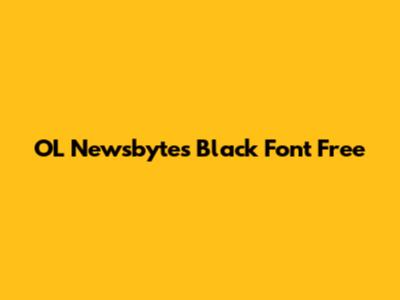
Hey guys! Are you on the hunt for that perfect font to give your projects a sleek, modern edge? Look no further! Today, we're diving deep into the world of OL Newsbytes Black Font, exploring why it's a fantastic choice, where you can snag it for free, and how to make the most of it in your designs. Trust me, by the end of this article, you'll be itching to add this gem to your font library.
What is OL Newsbytes Black Font?
OL Newsbytes Black Font is a typeface that exudes sophistication and contemporary appeal. Its clean lines and bold strokes make it incredibly versatile, suitable for a wide array of design applications. From eye-catching headlines to impactful body text, this font is designed to grab attention and maintain readability. What sets it apart is its distinctive character shapes, lending a unique personality to any project. Whether you're working on a website, poster, branding material, or even a simple social media graphic, OL Newsbytes Black Font adds a touch of elegance that's hard to ignore. The font's robust design ensures it stands out, making it perfect for titles and headings that need to make a strong impression. Moreover, its balanced letterforms and precise kerning contribute to a polished, professional look. It's not just about being bold; it's about being refined and making a statement with every character. The versatility of OL Newsbytes Black Font extends to both print and digital media, ensuring consistent visual impact across all platforms. Its clarity and legibility make it an excellent choice for longer texts, providing readers with a comfortable and engaging reading experience. Ultimately, OL Newsbytes Black Font is more than just a font; it's a design tool that empowers you to create visually stunning and effective communications. This fontβs ability to adapt to different design contexts makes it a valuable asset for designers of all levels. From minimalist designs to more complex compositions, OL Newsbytes Black Font integrates seamlessly, enhancing the overall aesthetic. It is a testament to thoughtful design, where every detail has been meticulously crafted to achieve a harmonious balance between form and function. So, if you're looking for a font that combines boldness with sophistication, OL Newsbytes Black Font is undoubtedly a top contender.
Why Choose OL Newsbytes Black Font?
So, why should you specifically choose OL Newsbytes Black Font over the countless other fonts available? Well, let me break it down for you. First off, its boldness makes it incredibly effective for grabbing attention. In a world inundated with information, standing out is crucial, and this font does just that. Whether it's a website header, a poster title, or a logo, OL Newsbytes Black Font ensures your message is seen and remembered. Secondly, the font's clean and modern design lends a touch of sophistication to any project. It's not just about being loud; it's about being stylish and professional. This makes it an excellent choice for businesses and brands looking to convey a sense of competence and innovation. Thirdly, OL Newsbytes Black Font is surprisingly versatile. While it shines in headlines and titles, it's also legible enough to be used in body text, especially in shorter paragraphs or captions. This flexibility allows you to maintain a consistent visual style throughout your design. Fourthly, the font's unique character shapes give it a distinct personality. It's not just another generic bold font; it has its own flair and charm. This can help your designs stand out from the crowd and leave a lasting impression. Fifthly, OL Newsbytes Black Font often comes with a variety of weights and styles, giving you even more control over your design. You can adjust the thickness and slant of the font to suit your specific needs. Finally, and perhaps most importantly, it's often available for free! Who doesn't love a high-quality font that doesn't break the bank? By choosing OL Newsbytes Black Font, you're not just selecting a typeface; you're making a statement. You're saying that you value both aesthetics and functionality, and that you're willing to go the extra mile to create designs that truly resonate with your audience. Its robust design, balanced letterforms, and precise kerning contribute to a polished, professional look, making it a valuable asset for designers of all levels. So, if you're looking for a font that combines boldness with sophistication and versatility, OL Newsbytes Black Font is undoubtedly a top contender.
How to Use OL Newsbytes Black Font in Your Designs
Alright, you've got your hands on OL Newsbytes Black Font β now what? Let's talk about how to effectively use this font in your designs to make them truly shine. First off, consider its strengths. This font is bold and impactful, making it perfect for headlines, titles, and logos. Use it to grab attention and make a statement. But don't overdo it! Too much boldness can be overwhelming. Use it sparingly to highlight key information and create visual hierarchy. When using OL Newsbytes Black Font in headlines, make sure the text is legible and easy to read. Adjust the letter spacing and line height to optimize readability. Experiment with different font sizes to find the perfect balance between impact and clarity. In logos, OL Newsbytes Black Font can convey a sense of strength, confidence, and modernity. Pair it with a simple, clean design to create a logo that is both memorable and timeless. Consider using the font in a contrasting color to make it stand out even more. While OL Newsbytes Black Font is primarily a display font, it can also be used in body text, especially in shorter paragraphs or captions. However, be mindful of readability. Use a slightly smaller font size and increase the line height to make the text more comfortable to read. When pairing OL Newsbytes Black Font with other fonts, choose typefaces that complement its style. Sans-serif fonts with clean lines and simple shapes often work well. Avoid fonts that are too similar or too contrasting, as this can create a jarring effect. Experiment with different combinations to find the perfect balance. In web design, OL Newsbytes Black Font can be used to create eye-catching headers and call-to-action buttons. Use it to draw attention to important content and encourage users to take action. Make sure the font is web-safe and renders correctly on different browsers and devices. Finally, don't be afraid to experiment and break the rules. Design is all about creativity and self-expression. Use OL Newsbytes Black Font as a starting point and let your imagination run wild. With a little practice and experimentation, you can create stunning designs that truly capture your vision. By following these tips, you can effectively use OL Newsbytes Black Font to enhance your designs and make a lasting impression. Remember, the key is to use it strategically and purposefully to achieve your desired visual impact.
Examples of Effective Use
To really drive home the power of OL Newsbytes Black Font, let's look at some examples of how it can be used effectively in various design scenarios. Imagine you're designing a poster for a music festival. Using OL Newsbytes Black Font for the headline β the name of the festival β immediately grabs attention. Its boldness ensures it stands out against a busy background, and its modern aesthetic aligns perfectly with the youthful energy of the event. Now, picture a website for a tech startup. The logo, crafted with OL Newsbytes Black Font, conveys innovation and confidence. The clean lines and strong letterforms communicate a sense of reliability and cutting-edge technology. Throughout the site, the font is used in headers and subheadings to create a clear visual hierarchy, guiding visitors through the content seamlessly. Consider a book cover design. The title, set in OL Newsbytes Black Font, hints at the story's intensity and drama. Its striking appearance draws readers in, making them eager to discover what lies within the pages. The font's unique character shapes add a touch of intrigue, piquing the curiosity of potential buyers. Envision a social media campaign. Short, impactful messages, set in OL Newsbytes Black Font, cut through the noise of the feed. Its boldness ensures they're seen and remembered, even in a fast-scrolling environment. The font's versatility allows it to be used across different platforms, maintaining a consistent brand identity. Think about a menu design for a trendy restaurant. The dish names, written in OL Newsbytes Black Font, exude sophistication and culinary excellence. Its stylish appearance elevates the dining experience, making customers feel like they're in for a special treat. The font's legibility ensures they can easily browse the menu and make informed choices. These examples highlight the versatility and impact of OL Newsbytes Black Font. Whether it's grabbing attention, conveying confidence, hinting at drama, cutting through the noise, or exuding sophistication, this font is a powerful tool for designers. By understanding its strengths and applying it strategically, you can create designs that truly resonate with your audience and achieve your desired visual impact. These scenarios underscore the font's ability to adapt to various design contexts, making it a valuable asset for any creative project. From bold headlines to elegant body text, OL Newsbytes Black Font consistently delivers a message with clarity and style, enhancing the overall aesthetic and leaving a lasting impression.
Conclusion
So, there you have it, folks! OL Newsbytes Black Font is a fantastic choice for anyone looking to add a touch of boldness, modernity, and sophistication to their designs. Whether you're a seasoned designer or just starting out, this font can help you create visually stunning and effective communications. Remember to download it from reputable sources, respect the licensing terms, and experiment with different ways to use it in your projects. With a little creativity, you can unlock the full potential of OL Newsbytes Black Font and take your designs to the next level. Happy designing! And remember, keep experimenting and pushing your creative boundaries. The world of typography is vast and exciting, and there's always something new to discover. OL Newsbytes Black Font is just one tool in your arsenal, but it's a powerful one that can help you make a lasting impression. So go out there and create something amazing! And don't forget to share your creations with the world. Your work might inspire others and contribute to the ever-evolving landscape of design. Ultimately, design is about more than just aesthetics; it's about communication, connection, and making a positive impact on the world. So use your skills and talents wisely, and always strive to create designs that are both beautiful and meaningful. With OL Newsbytes Black Font and your own unique vision, the possibilities are endless. Embrace the challenge, have fun, and let your creativity shine! Thanks for reading, and I hope this article has been helpful in your quest for the perfect font. Until next time, keep designing and stay creative!